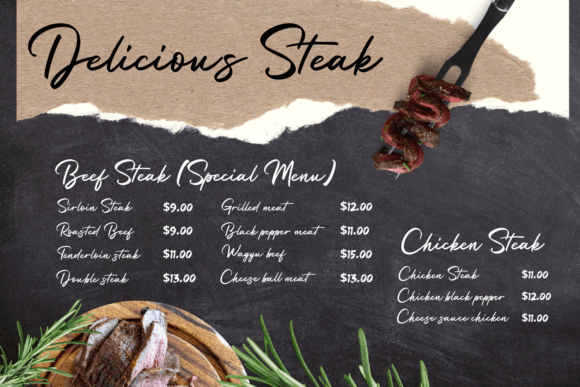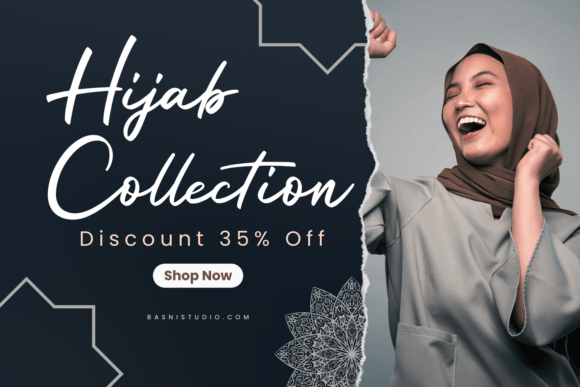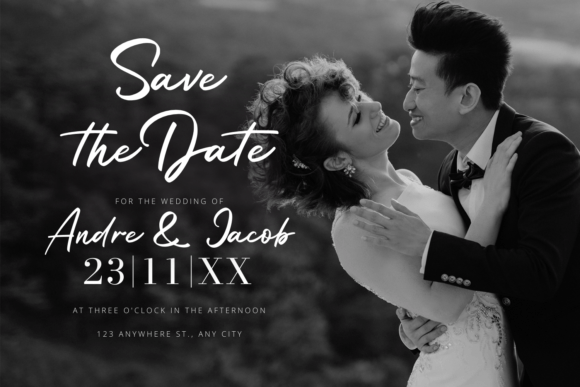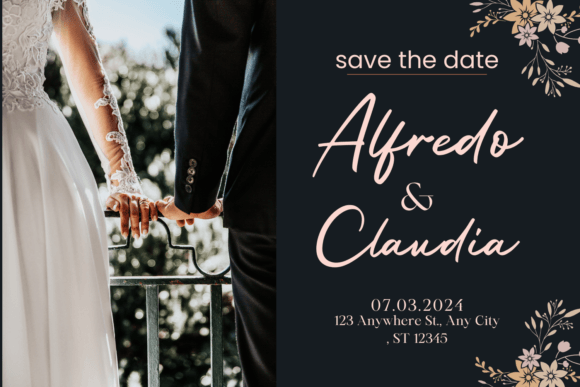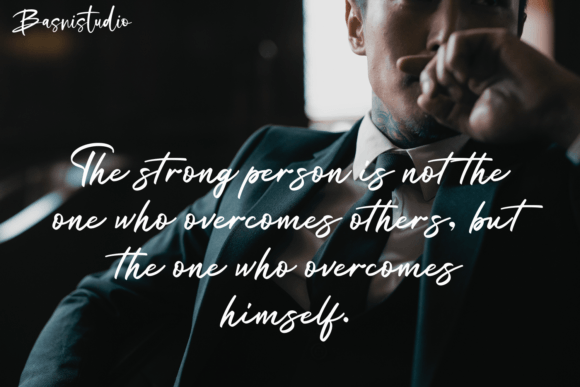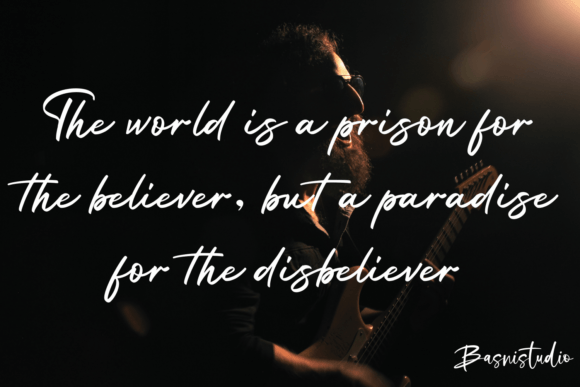
Unlocking the Potential of Your Next Creative Project with Sattria Handsome Font
Have you ever stared at a blank canvas, unsure of how to bring your creative vision to life? For designers, finding the perfect font can be the missing piece that sets their project apart. This is where the Sattria Handsome Font comes in – a beautifully crafted handwritten font that’s sure to elevate your design resource.
With its elegant, high-quality design, the Sattria Handsome Font is perfect for branding, websites, and editorial design. Its transparent background and complete set of characters make it an ideal choice for designers who want to add a personal touch to their creative project. And the best part? It’s available for free download, making it a valuable addition to any designer’s toolkit.
Whether you’re working on a personal project or a client-based design, the Sattria Handsome Font is sure to be a game-changer. Its versatility and high-quality design make it a must-have for any designer looking to take their creative project to the next level.
Key Features of Sattria Handsome Font
- High-quality, unique font design perfect for creative projects, offering a stylish and elegant look.
- Comes with transparent background, allowing for easy customization and versatility in design applications.
- Includes a range of characters, including uppercase and lowercase letters, numbers, and special characters, making it suitable for various design needs.
- Designed with high resolution, ensuring crisp and clear text display, ideal for both digital and print designs.
Honest Review: Sattria Handsome Font
I recently stumbled upon the Sattria Handsome Font, and I must say it’s been a game-changer for my creative project. As a designer, I’m always on the lookout for high-quality design resources that can elevate my work.
- ✨ Sleek and modern aesthetic that’s perfect for contemporary designs
- ✨ High-quality fonts that are available in various weights and styles
- ✨ Transparent background, allowing for seamless integration with any design
- ⚠️ Limited customization options, which might not appeal to designers who prefer a more bespoke look
- ⚠️ Some users may find the font to be too minimalist, which might not be suitable for all design projects
Overall, I’m thoroughly impressed with the Sattria Handsome Font. Its modern aesthetic and high-quality fonts make it an excellent choice for designers looking to elevate their creative projects. While it may have some limitations, I believe it’s a great addition to any design resource library.
For a high-quality design, use the Sattria Handsome Font on a transparent background to give your creative project a clean and modern look. This font is ideal for use in logos, posters, and other promotional materials.
With its elegant and sophisticated design, the Sattria Handsome Font is perfect for use in creative projects that require a touch of elegance and sophistication, such as wedding invitations, business cards, and luxury brand designs.
Q: What is the recommended size range for using the Sattria Handsome Font in my design project?
The Sattria Handsome Font is a high-quality font that can be used in a wide range of sizes, from small to large. However, for optimal legibility, we recommend using the font between 12pt and 48pt in size. This will ensure that the font looks crisp and clear, even when used in large or small sizes.